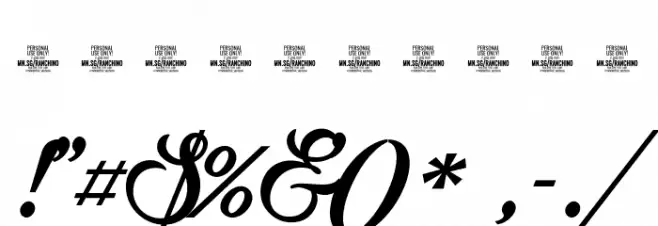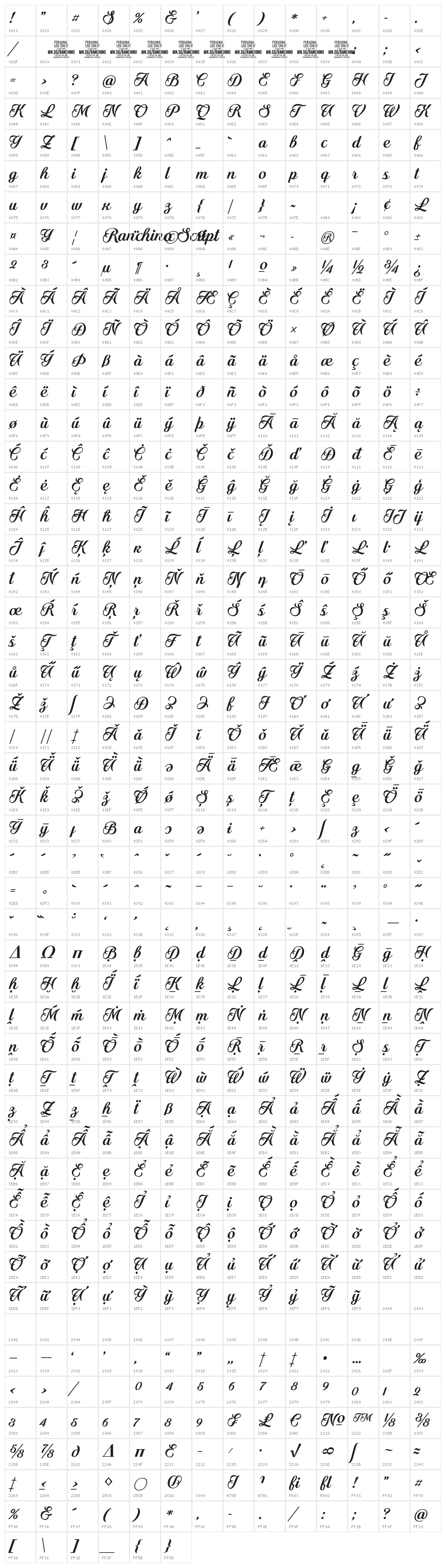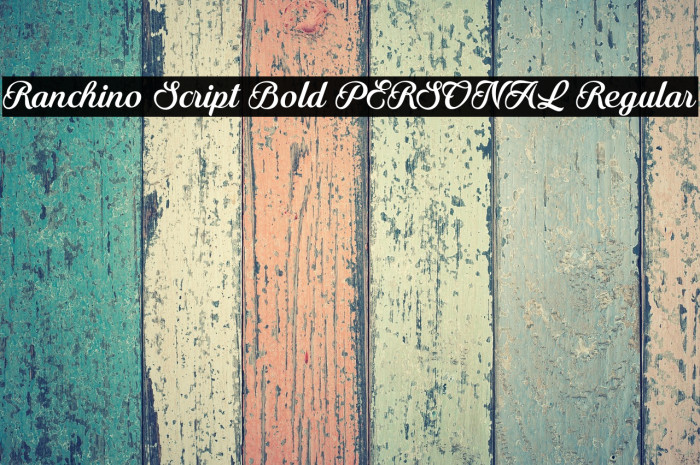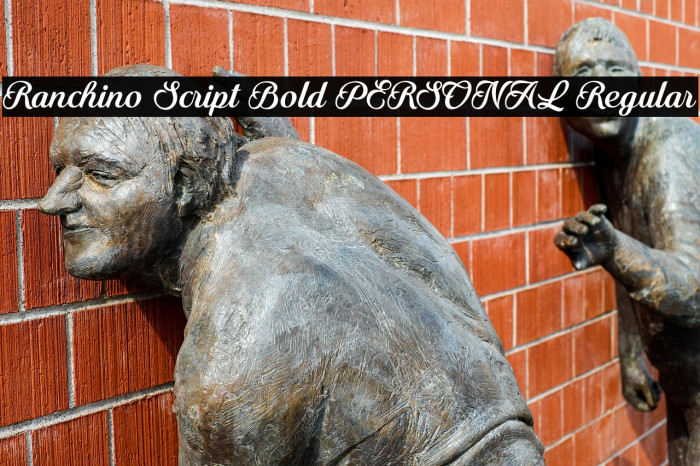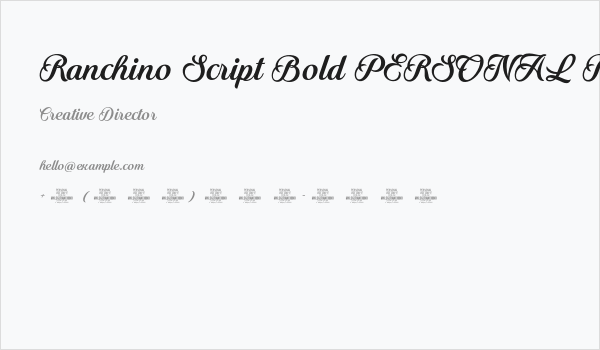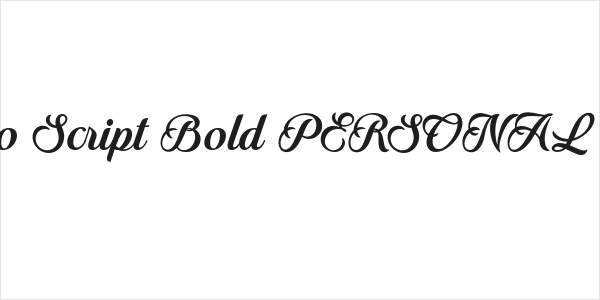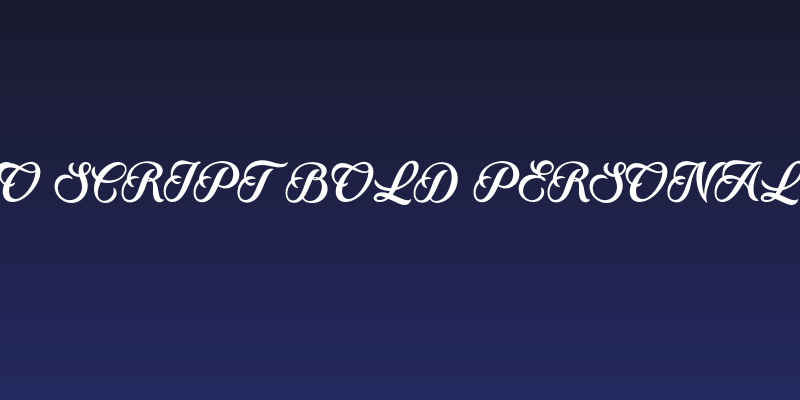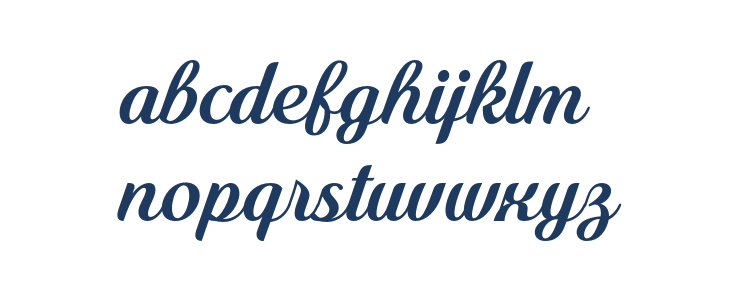
Ranchino Script Bold PERSONAL Regular Font
Ranchino Script Bold PERSONAL Regular Description
This script font exudes elegance and fluidity, characterized by its bold, sweeping strokes and graceful curves. The uppercase letters are ornate, with intricate loops and flourishes that add a touch of sophistication. The lowercase letters maintain a consistent flow, enhancing readability while preserving the decorative style. The numerals and special characters are designed to complement the overall aesthetic, ensuring a cohesive look across all text elements. This font is ideal for projects that require a personal, artistic touch, such as invitations, branding, and creative designs.
| Use Case | Logos, Invitations, Artistic designs |
| Proposed Projects | Ideal for wedding invitations, branding, logos, and artistic projects. |